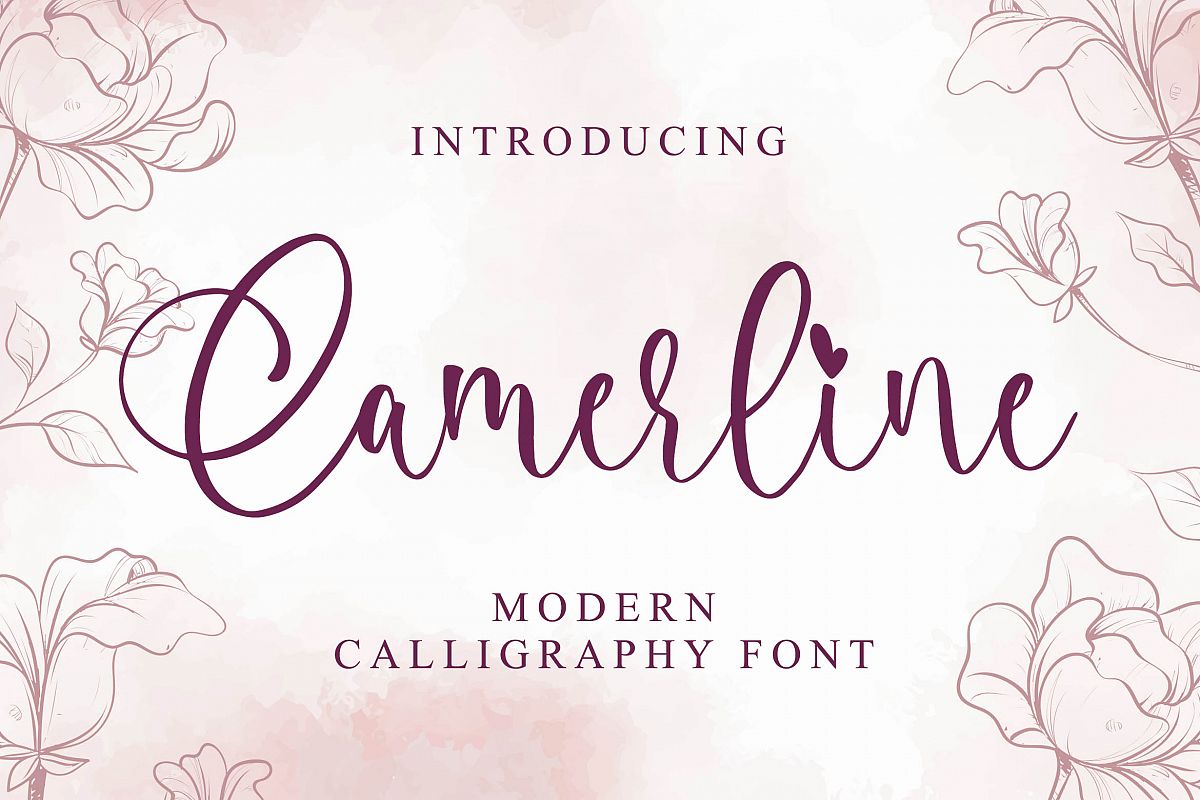
Camerline - Modern Calligraphy Font
Introducing of our new product the name is Camerline Modern Calligraphy Font. Camerline inspired by Beauty modern calligraphy style this font is a fun theme very good for signature, poster, fashion, wedding, branding etc